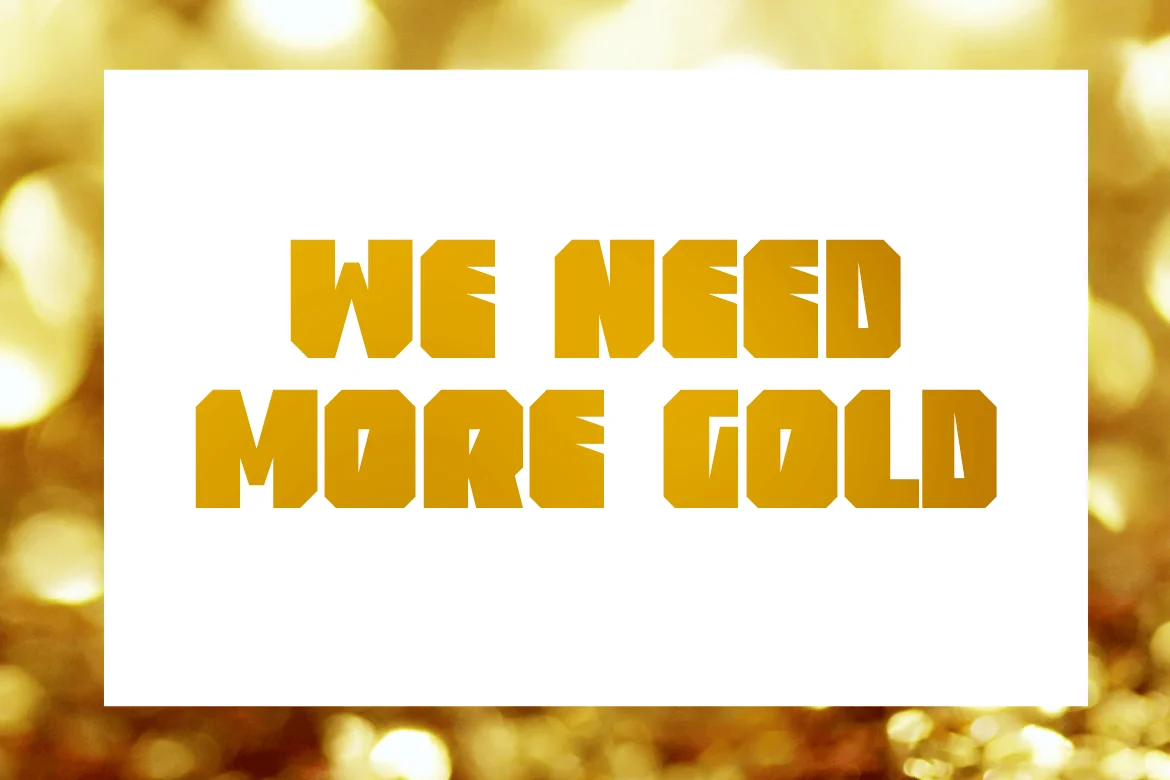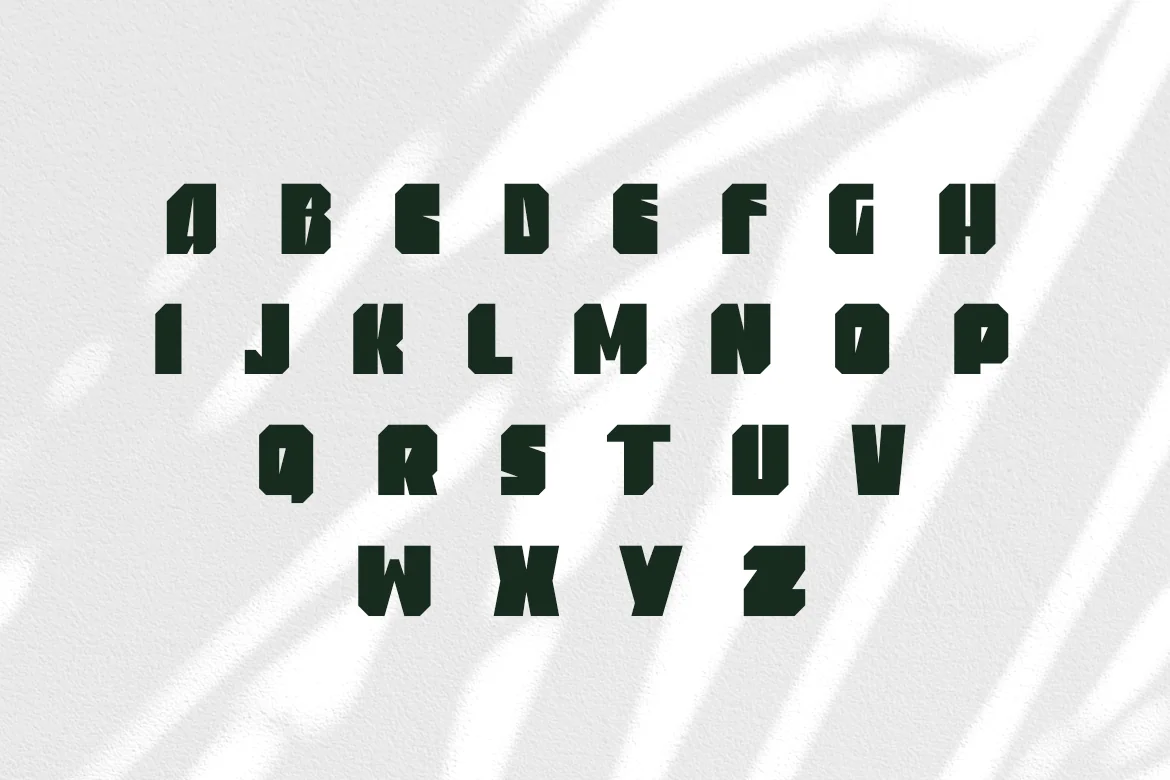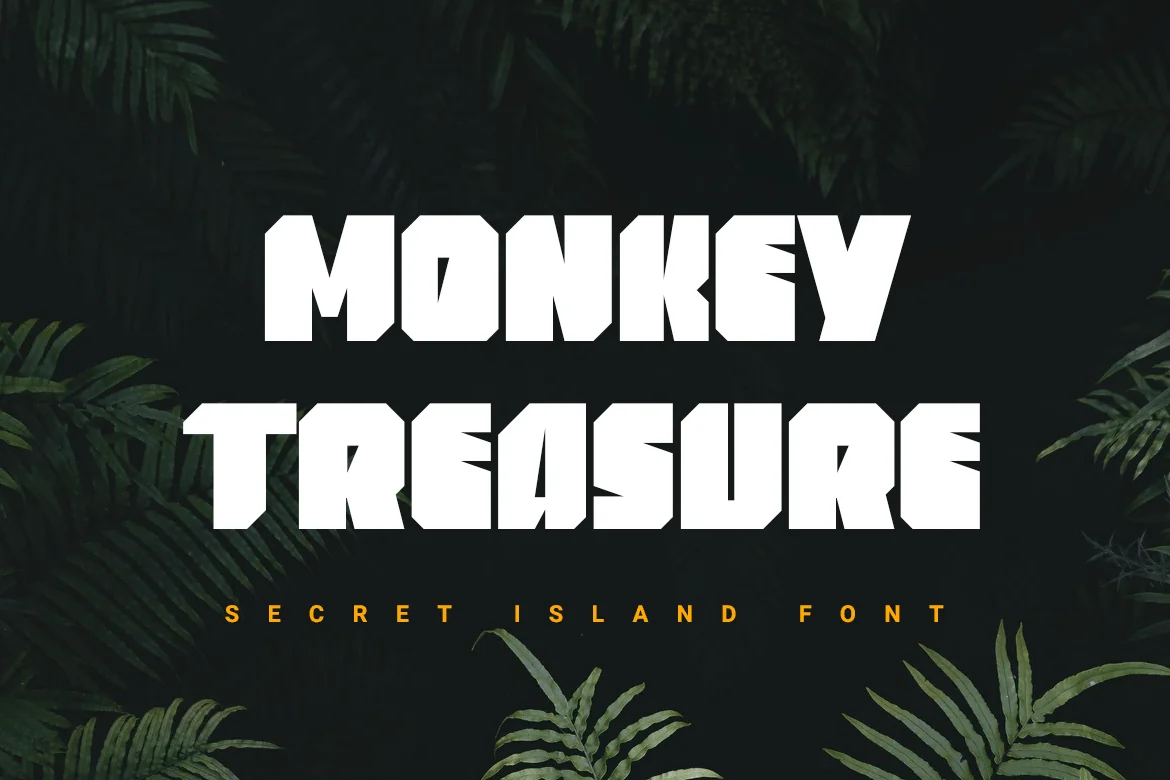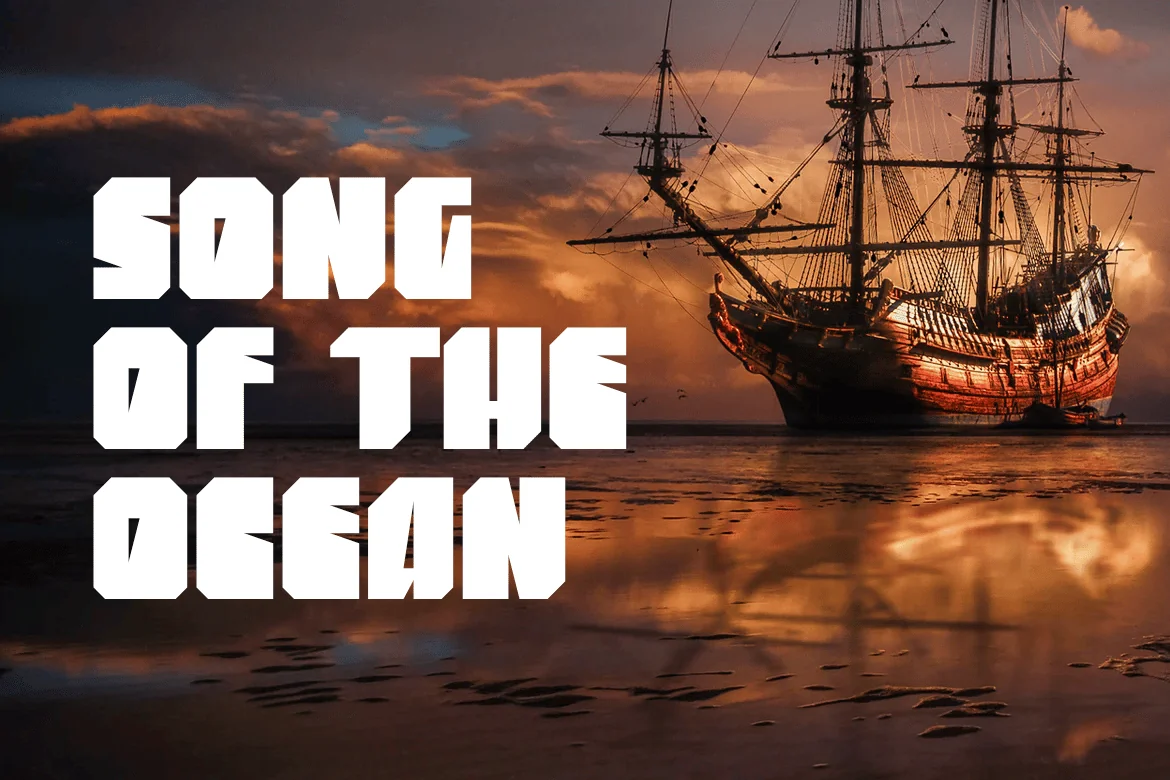
Monkey Treasure | heavy font
Monkey Treasure is a sans serif font designed with thick and heavy beveled edge letters. The font has only capital latin letters, it works great to make short titles and capacious headings. The font looks good on both dark and light backgrounds.
Includes only uppercase letters.